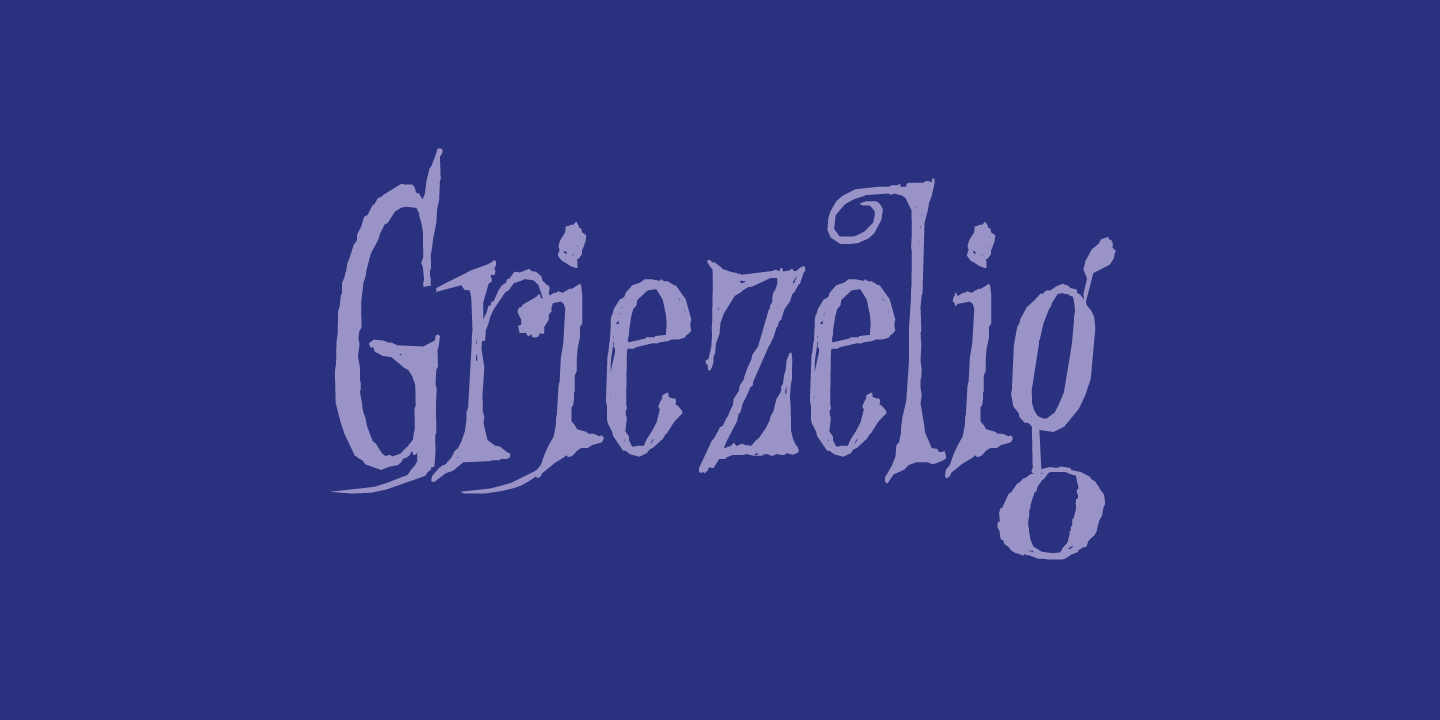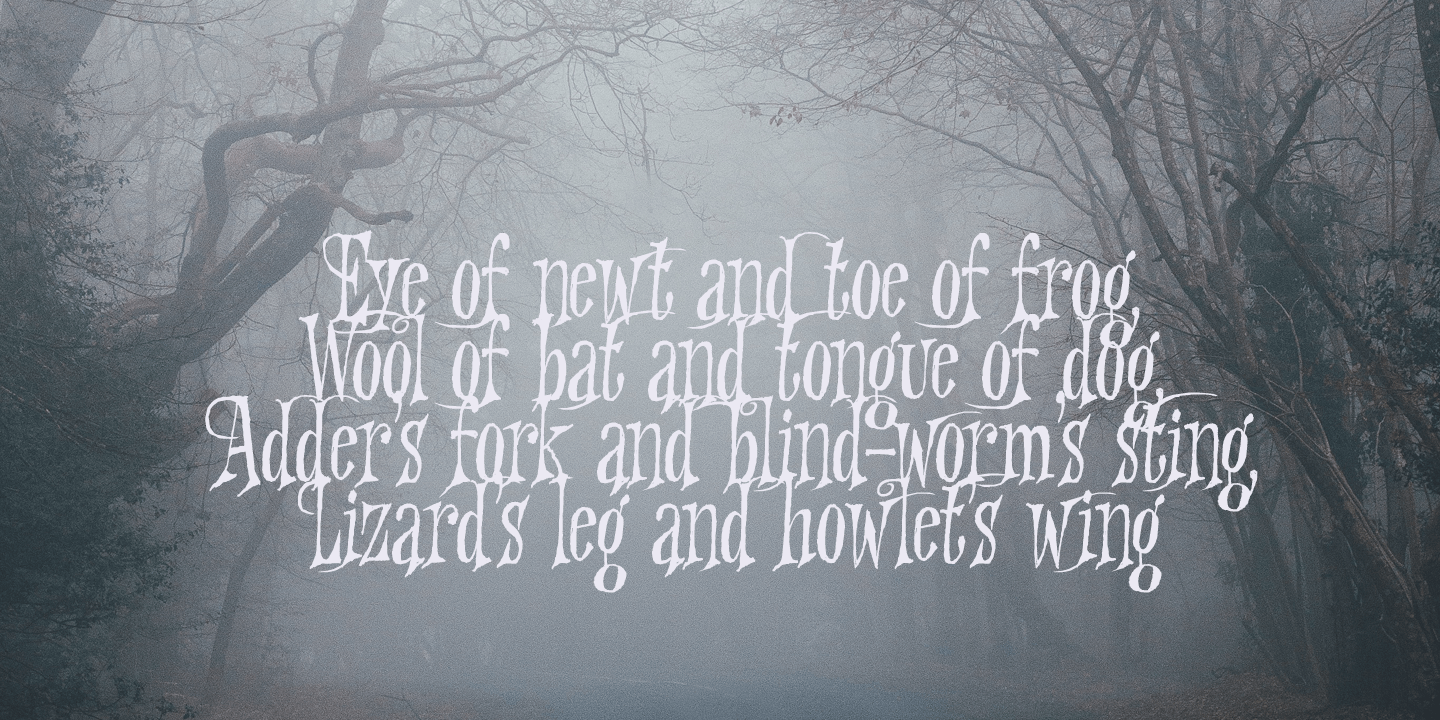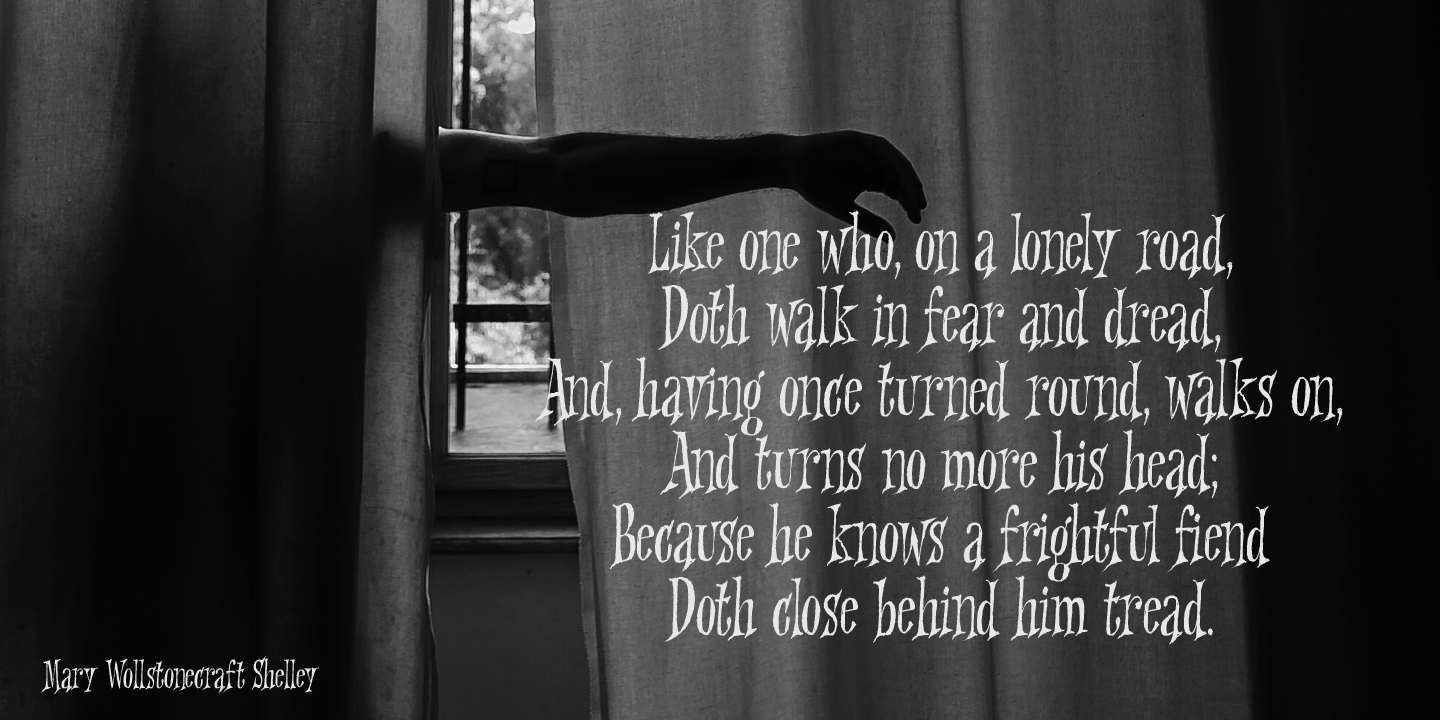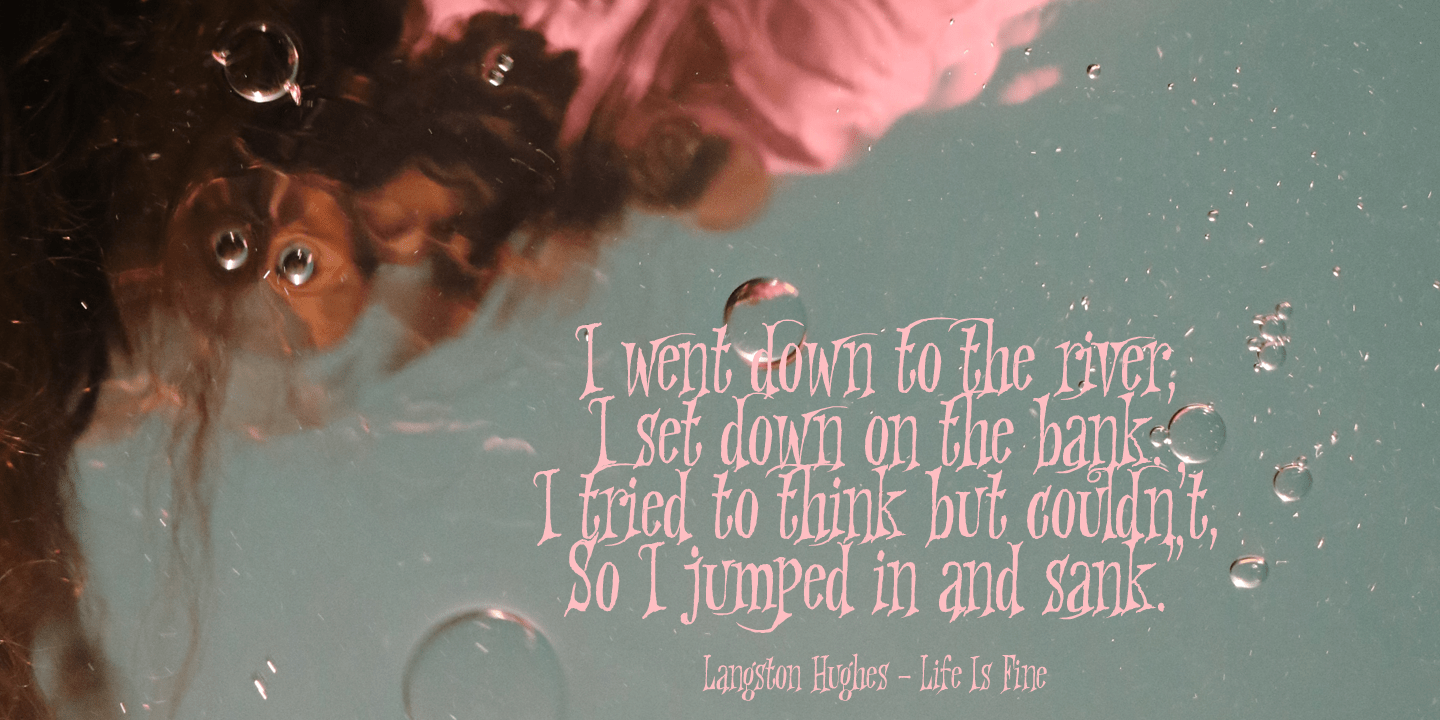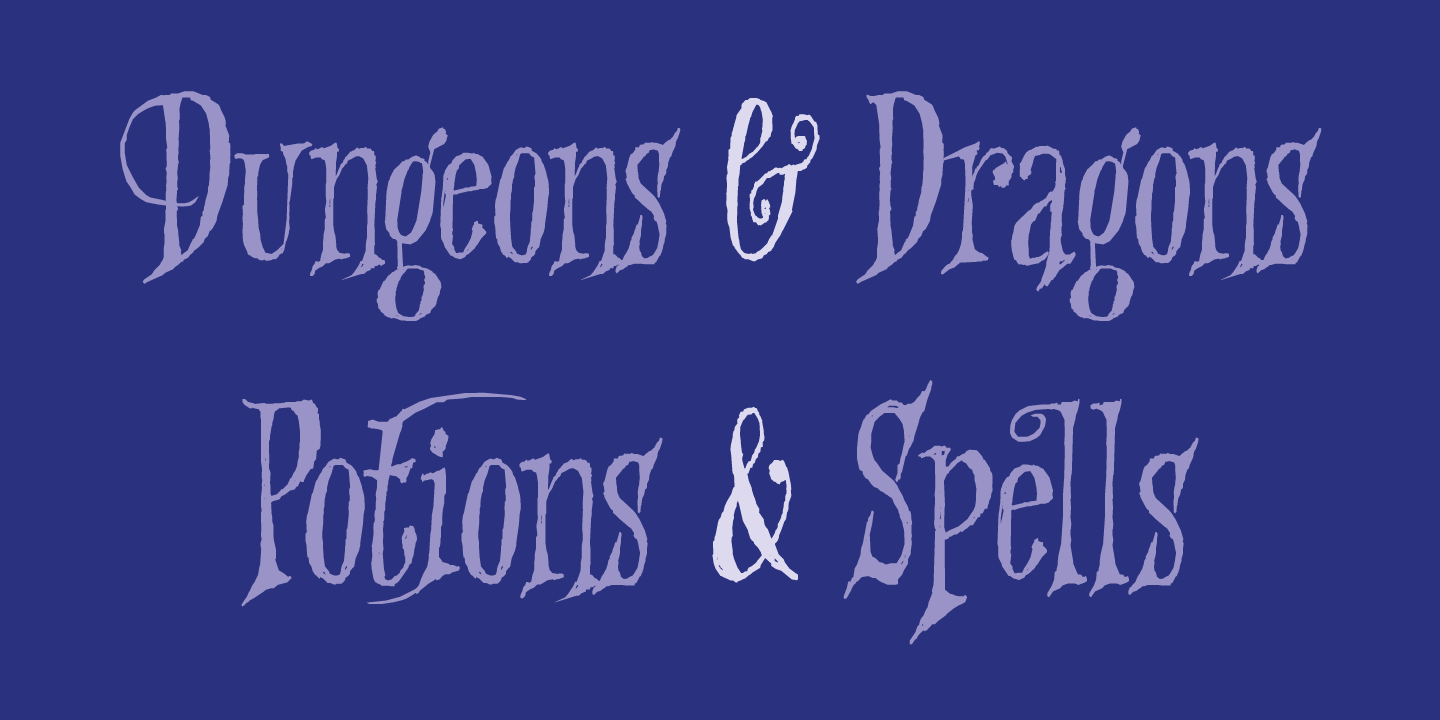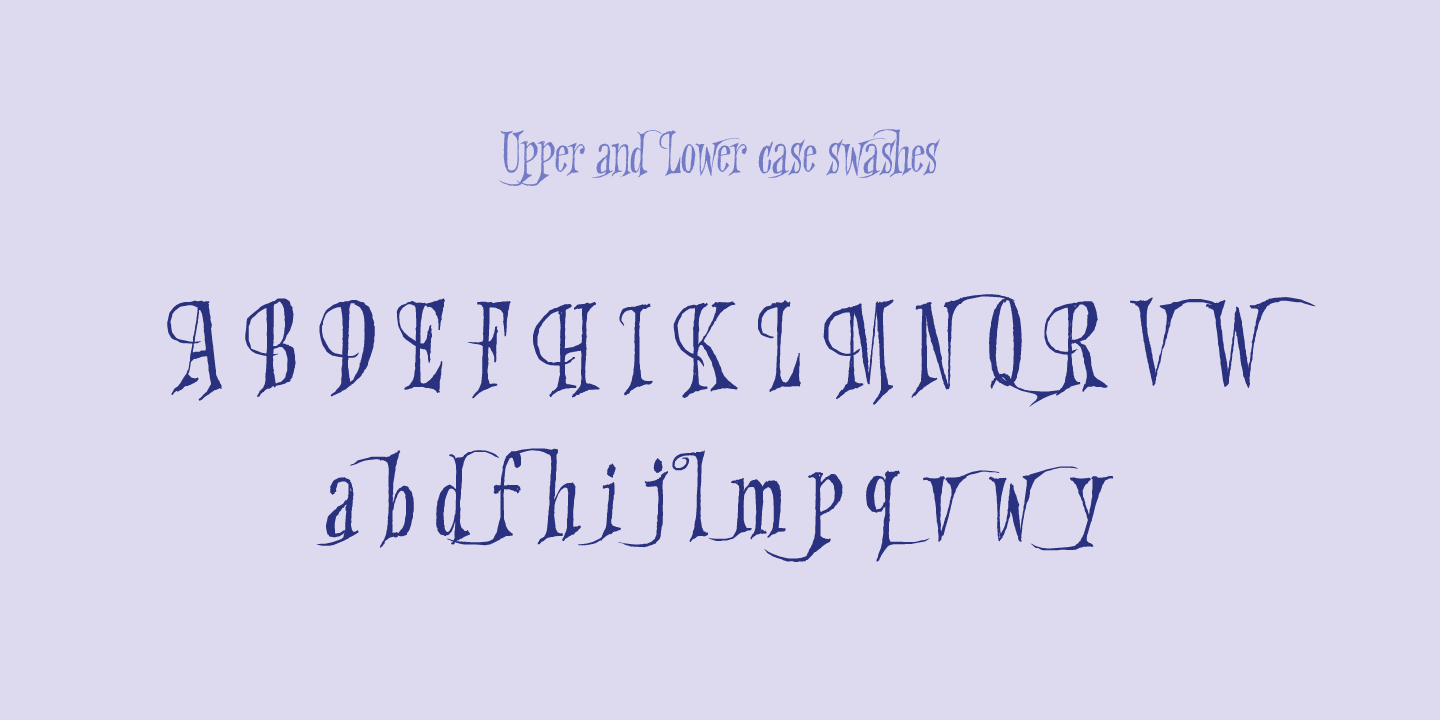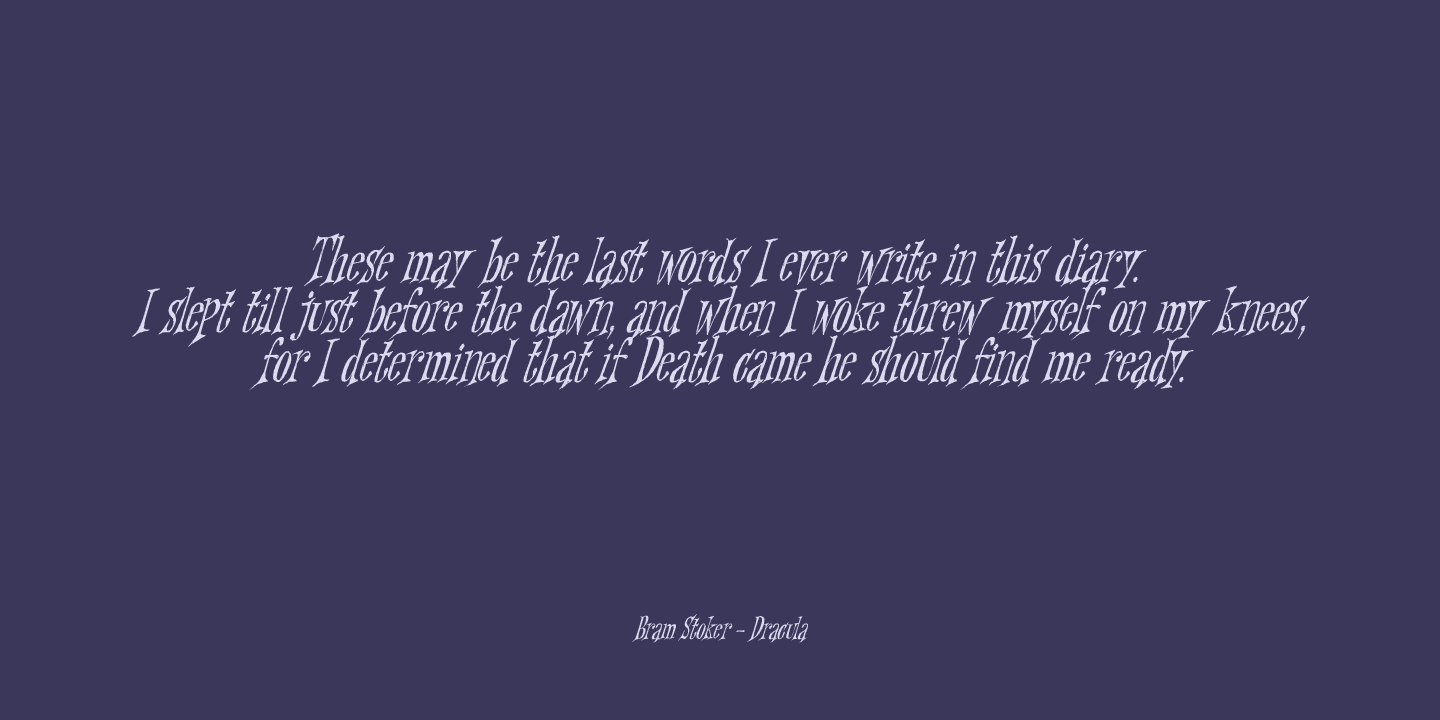
Griezelig
Font Family by Hanoded
I love creating fairytale fonts, but for some reason I haven't made one for quite a while. So, without further ado, I present Griezelig! Griezelig in Dutch means 'scary? or ?creepy?. The word itself even looks kind of creepy!
Griezelig was loosely based on two of my favourite (but unfortunately rather inconspicuous) fonts called Hexenhammer and Bronwen.